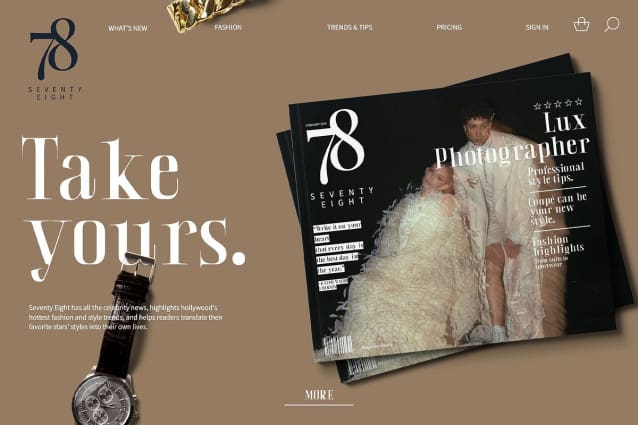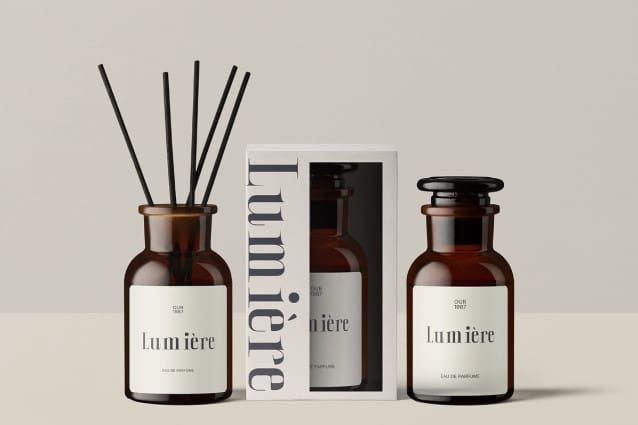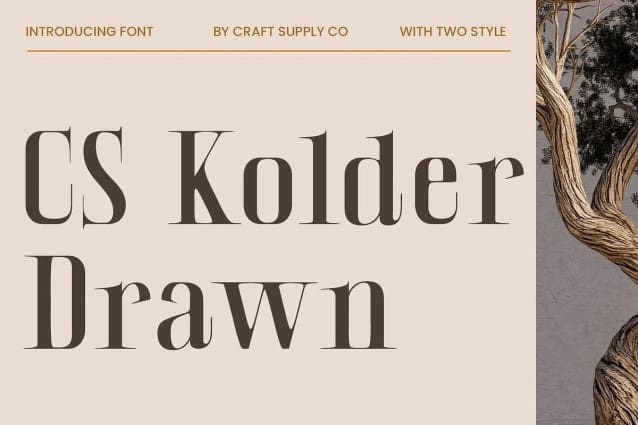
CS Kolder Drawn Font
CS Kolder Drawn Font is a modern serif font that combines the sophistication of sharp, well-defined serifs with a creative, hand-drawn effect. The elegant, clean lines of the serifs lend a professional, refined appearance, making it ideal for projects that require a touch of luxury and formality. The sharp edges and structured letterforms contribute to a classic, authoritative look.
Creative and Personal with Hand-Drawn Effects The addition of the hand-drawn effect introduces a unique organic texture to the font, softening the sharpness of the serifs and adding a more personal, creative flair. The drawn lines evoke a sense of artistry and authenticity, making the font not only elegant but also expressive and full of character.
Versatile for High-End Design Projects Thanks to its elegant, well-defined serifs and creative, hand-drawn textures, this font is a versatile font that can be used in a wide range of luxury and creative design projects. From branding to invitations, packaging to editorial layouts, this font’s timeless elegance and unique personal touch ensure it stands out in any setting, offering a perfect balance of professionalism and artistry.